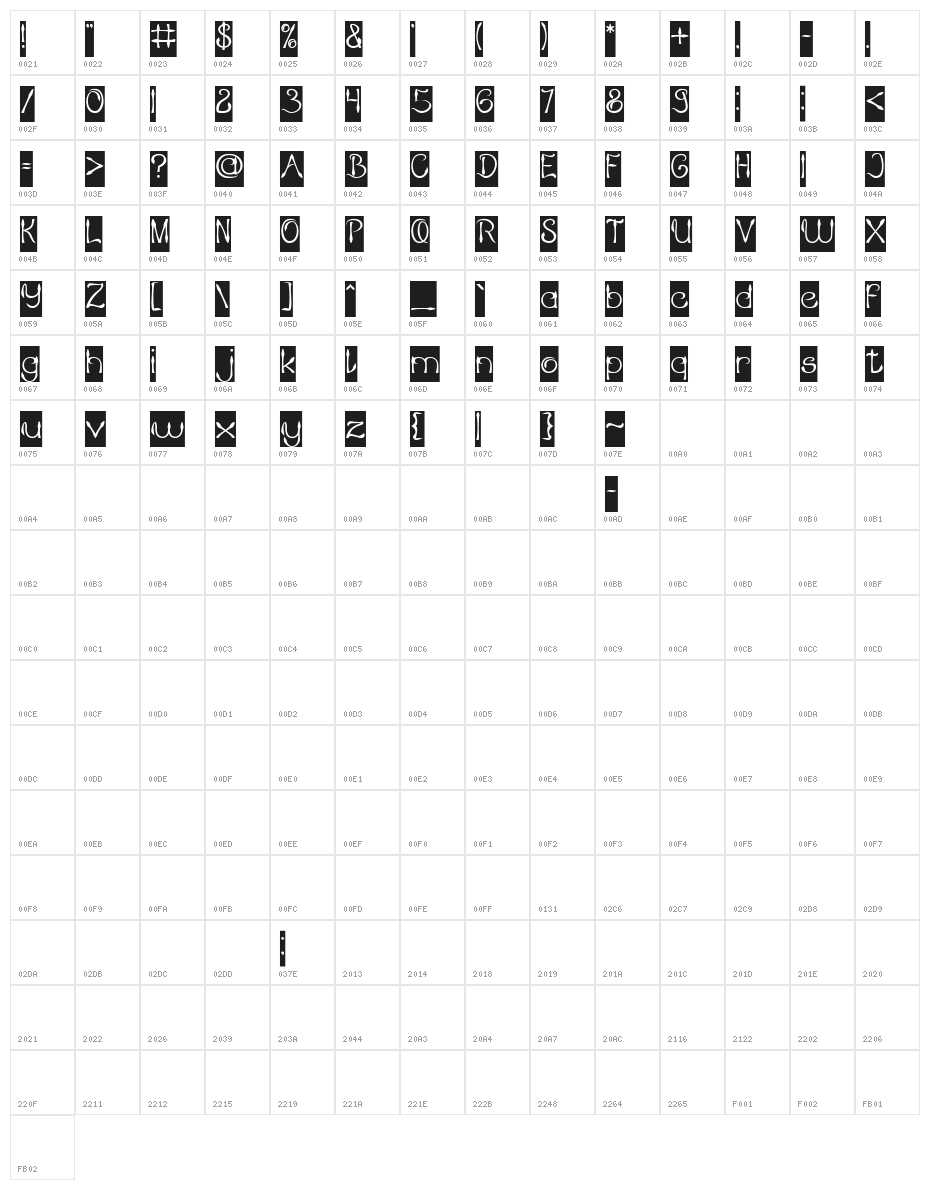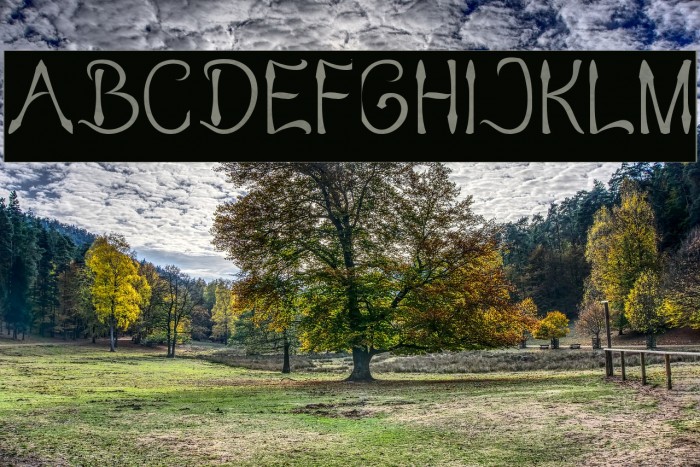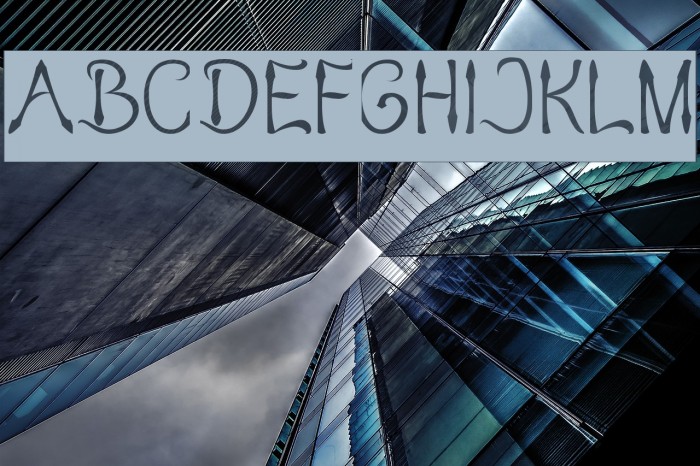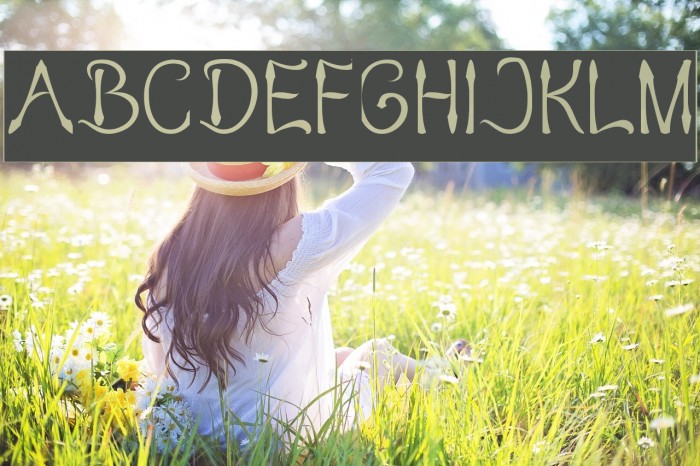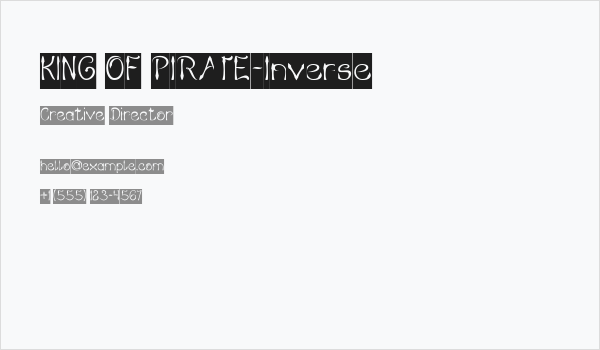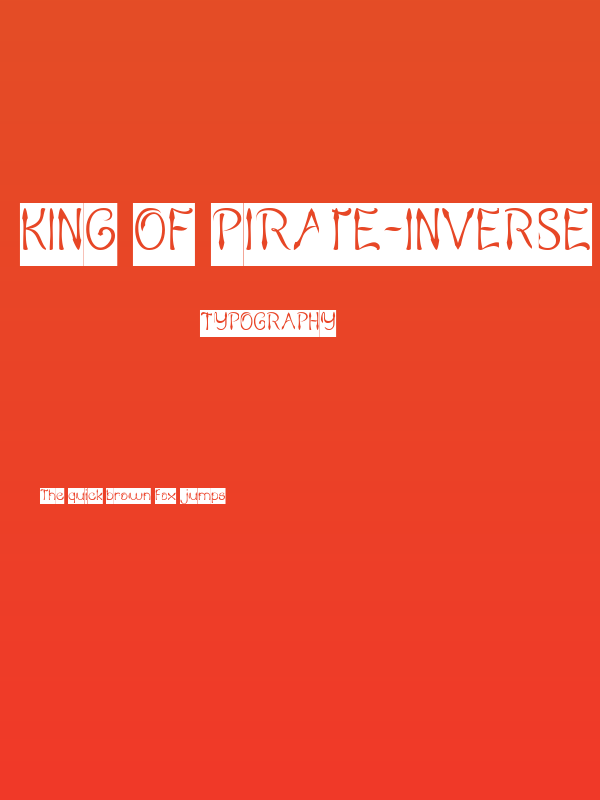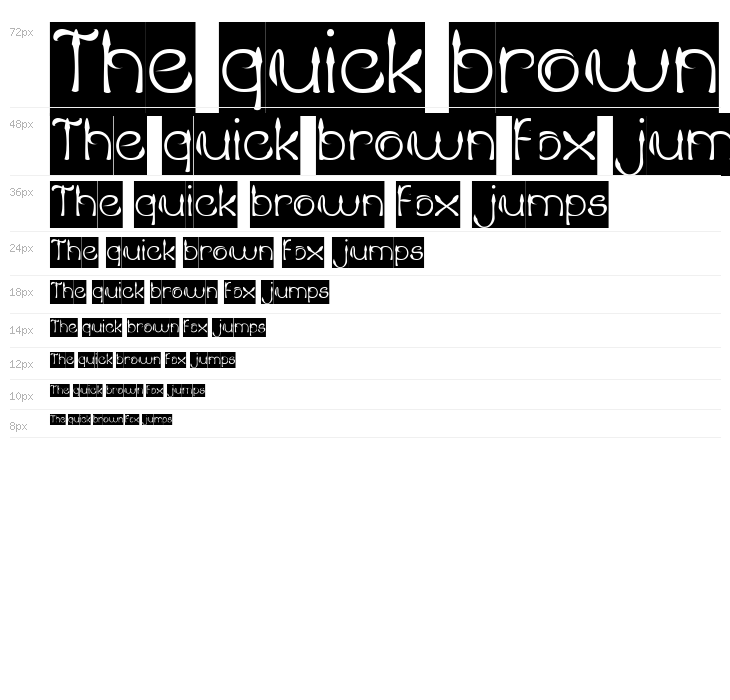
KING OF PIRATE-Inverse Font
KING OF PIRATE-Inverse Description
This font features a unique and playful design with a pirate-inspired theme. The characters have a whimsical and adventurous style, characterized by exaggerated curves and sharp edges that mimic the look of pirate scripts. The uppercase letters are bold and striking, while the lowercase letters maintain a consistent flow with a slightly more subdued appearance. Numbers and special characters follow the same thematic style, adding a cohesive look across all elements. The font's distinct personality makes it ideal for creative projects that require a touch of fantasy and adventure.
| Use Case | Headlines, Logos, Themed Events |
| Proposed Projects | Ideal for themed party invitations, pirate-themed events, children's book covers, and adventure game titles. |